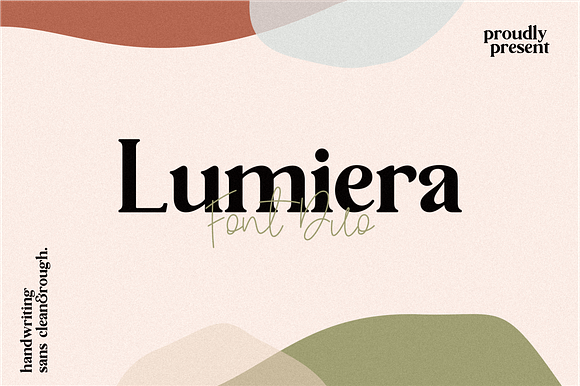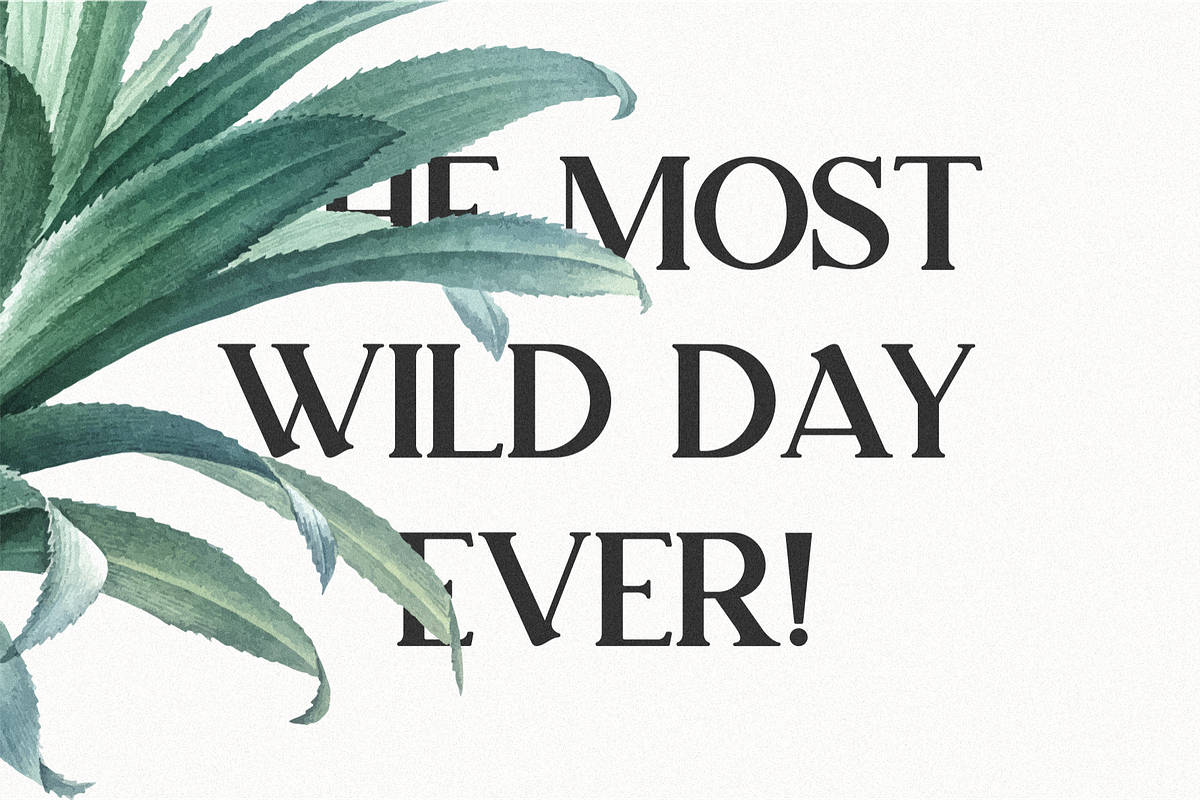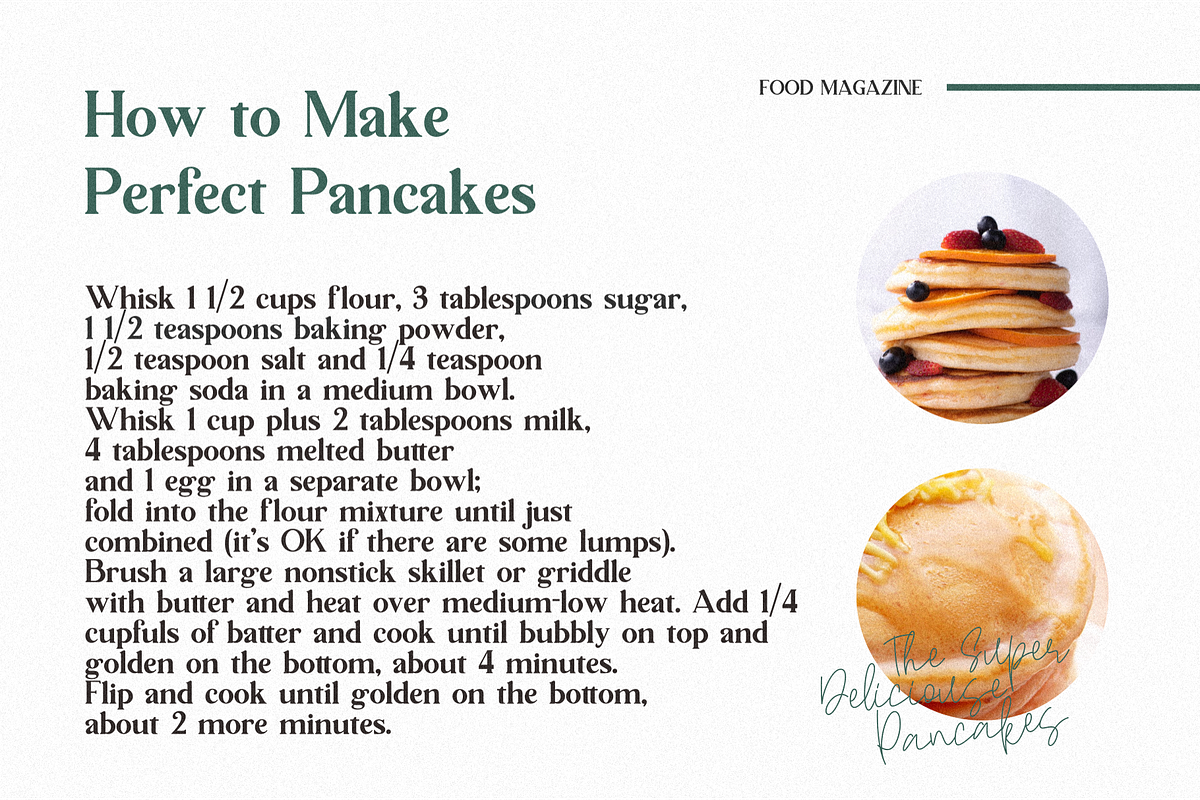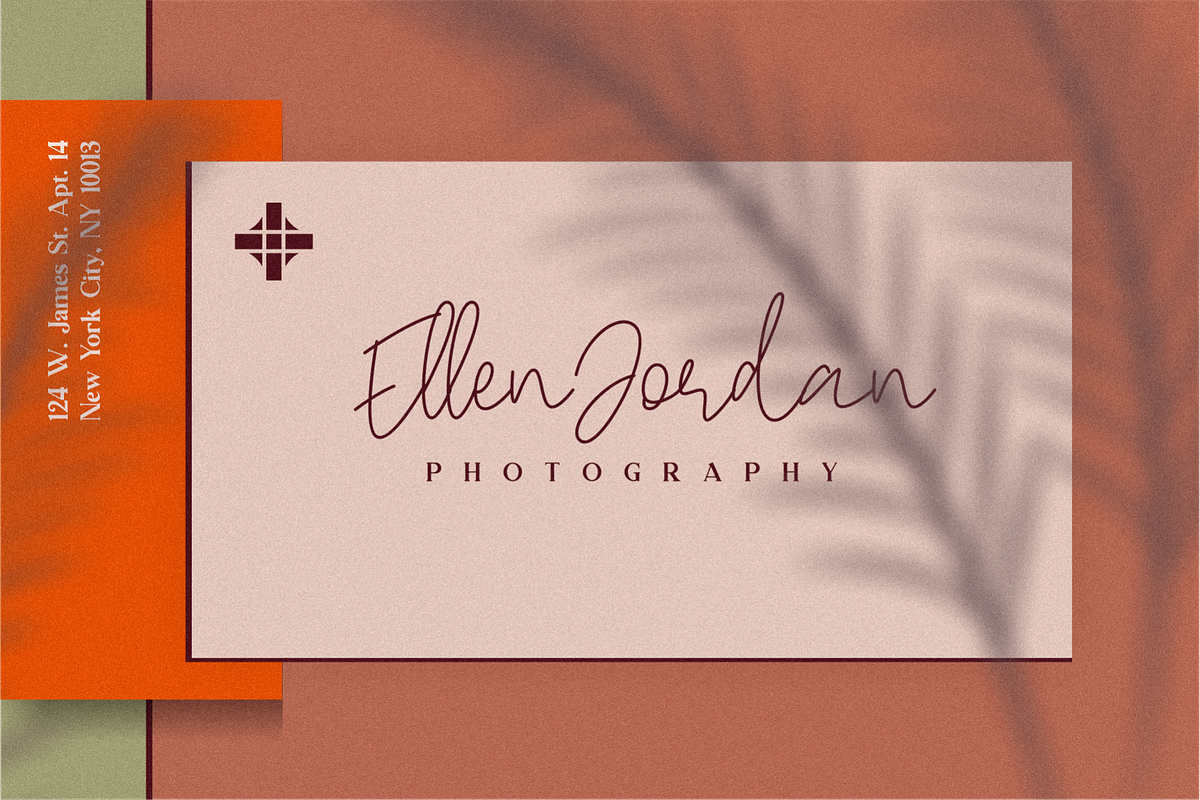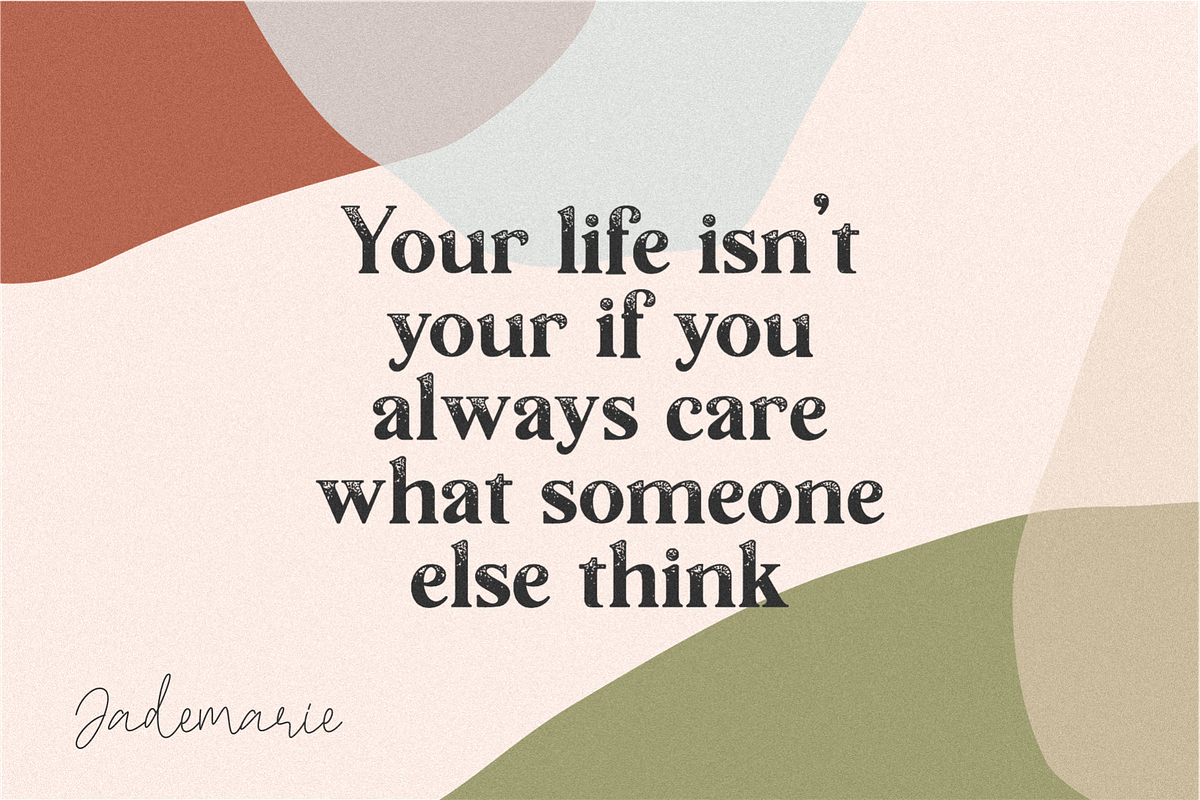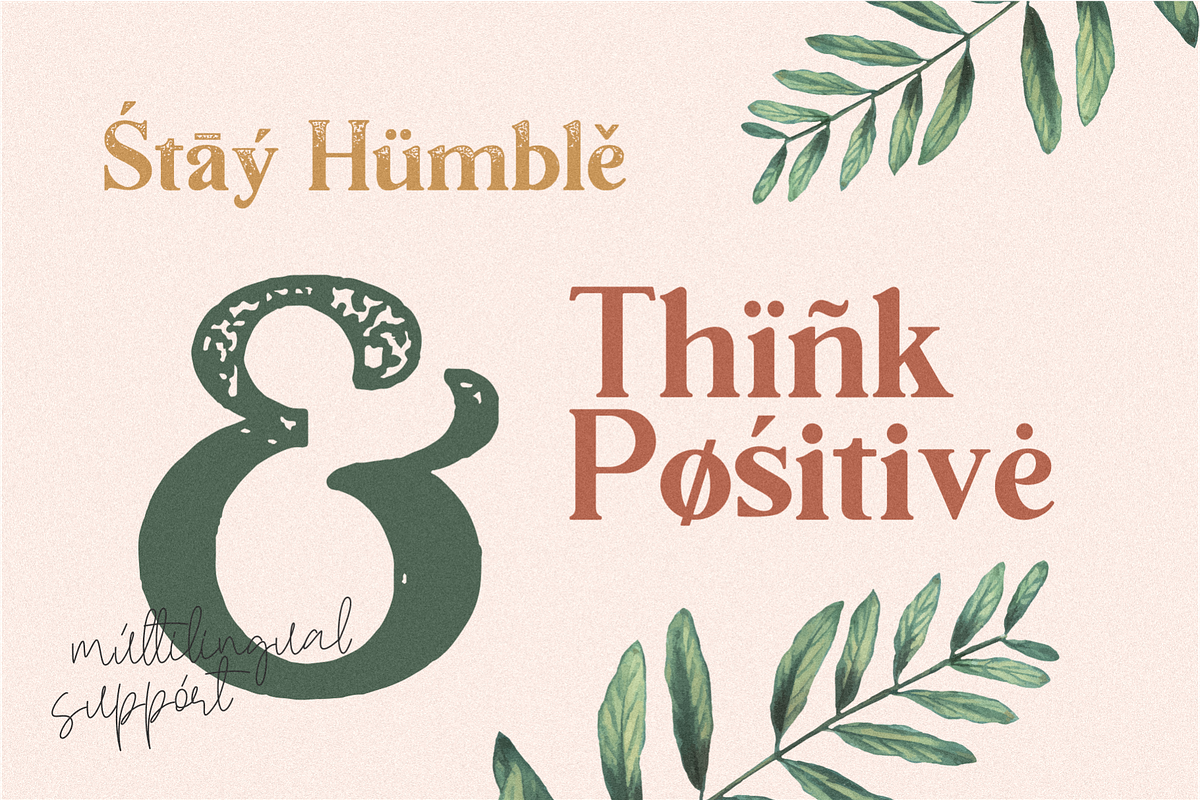
Lumiera Serif font
Lumiera is a sans serif font with characters that will give a modern and luxurious impression to your design products. Lumiera is perfect for design work that is luxurious or classic touch because it is available in several versions such as the sans serif style which is clean, rough, and soft handwritten fonts are available. This font is perfect for magazine cover designs, website titles, master signs, invitations, design labels, logos, business cards, CV, and other design products. Grab it fast this font, for your commercial design before the discount runs out :)
- Feature:
- Uppercase & Lowercase
- Number
- Punctuation.